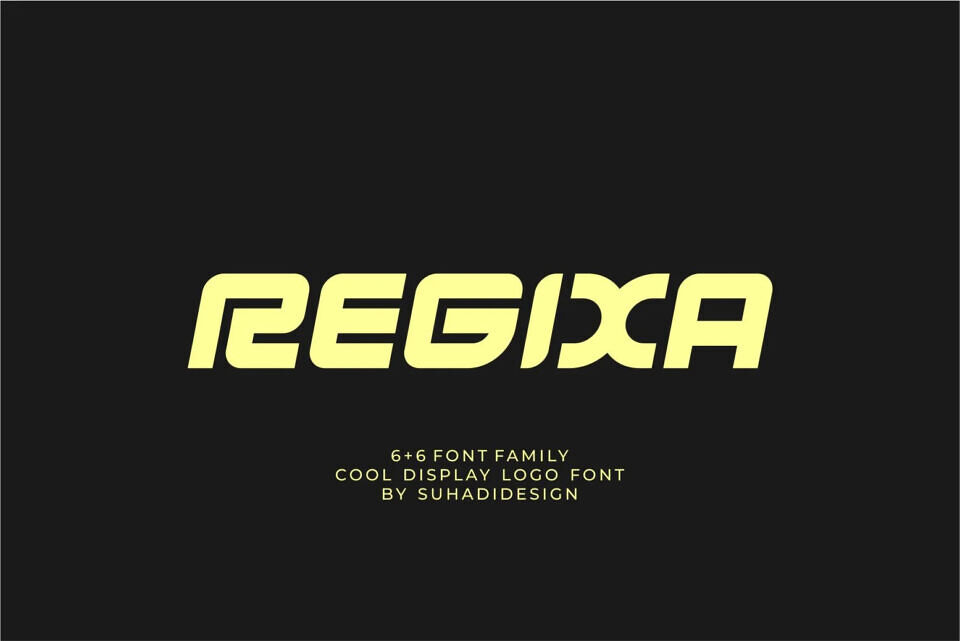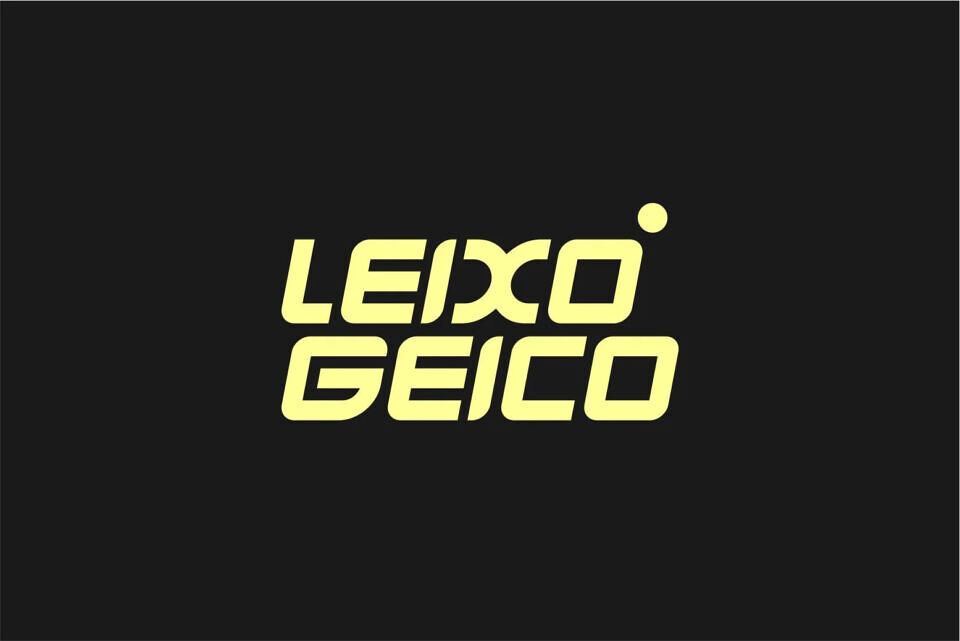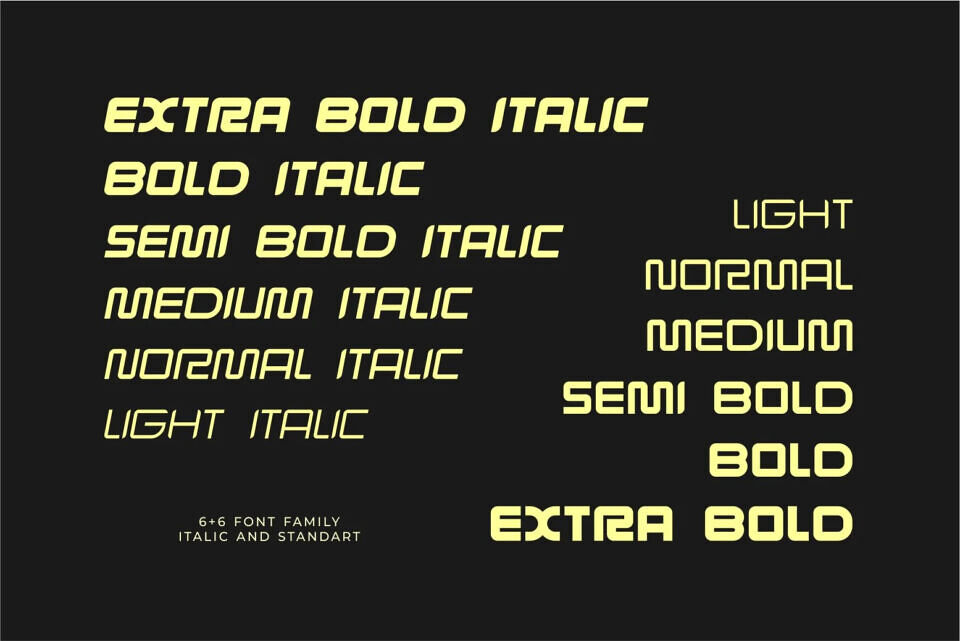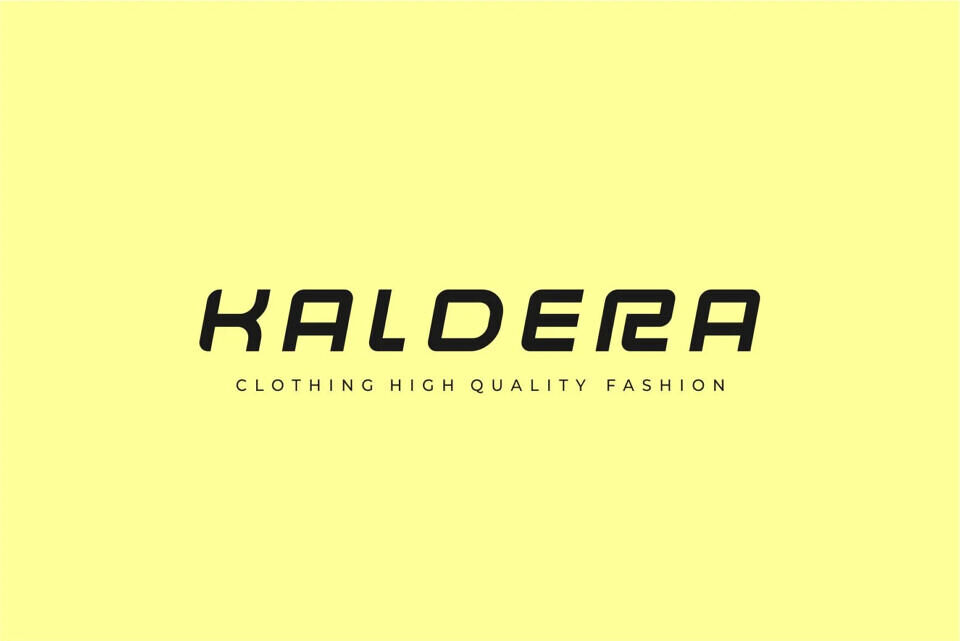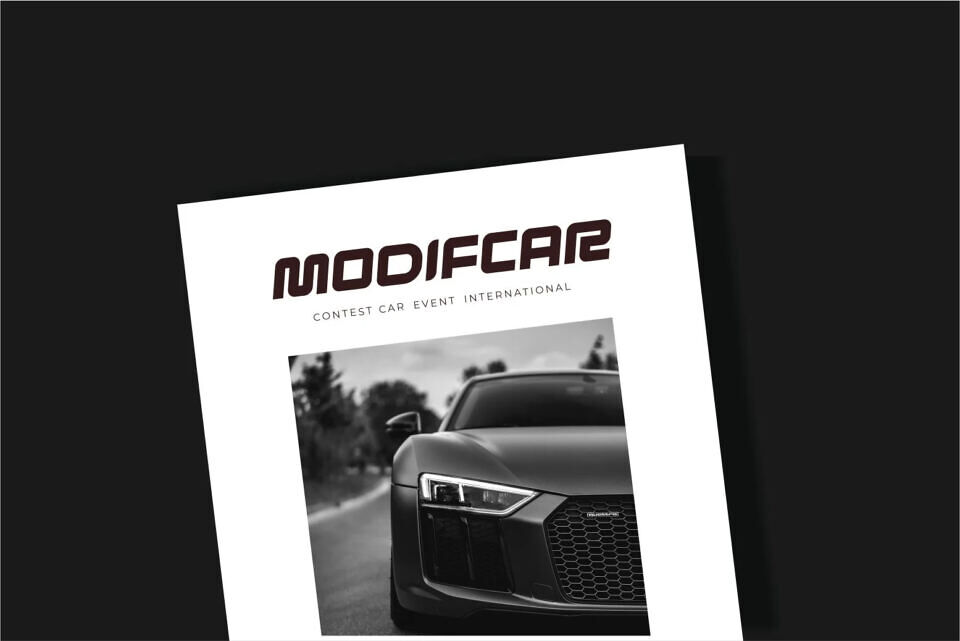
Regixa Font
Regixa is a minimalist sans serif font, presented with a modern style to become a market favorite. We’ve kept this font elegant, classy, modern, stylish, up-to-date, and easy to use.
Regixa is a great choice for logos, labels, fashion, posters, banners, bags, brands, fashion, brand names, branding, quotes, and other projects. Regixa is here to take your designs to the next level.